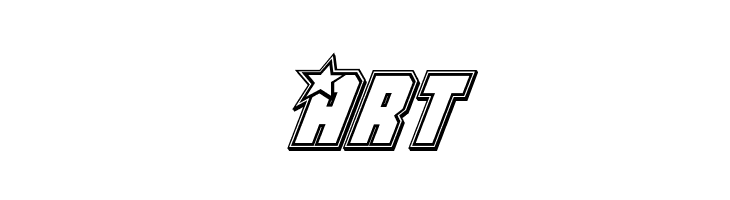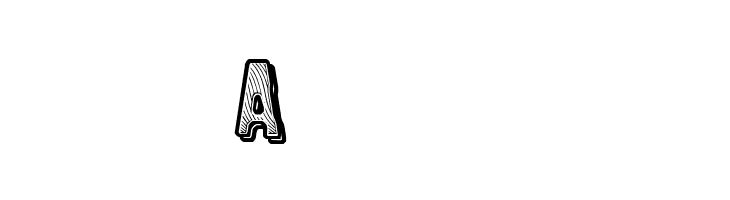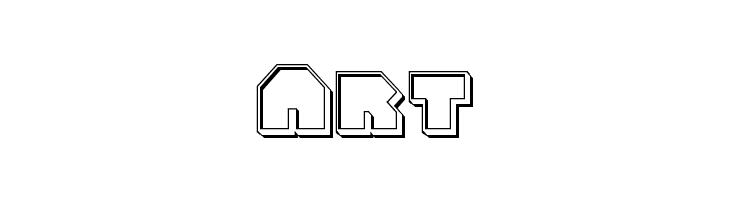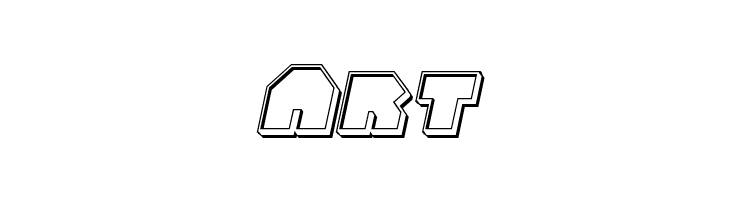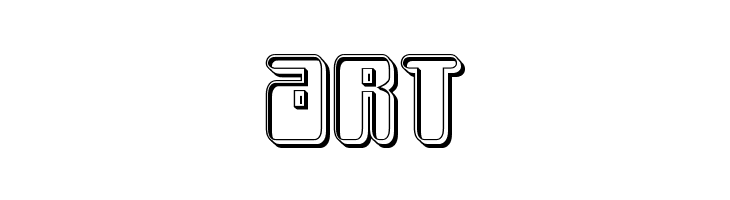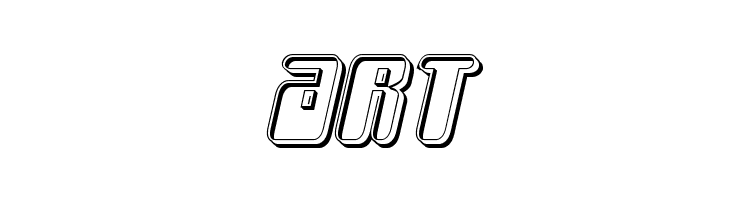
A bold, engraved, italic font with a three-dimensional outline effect.
A bold, geometric font with an engraved, three-dimensional effect.
A bold, futuristic, engraved italic font with a three-dimensional outline.
A bold, engraved italic font with a modern, dynamic style.
A bold, engraved font with a three-dimensional, geometric style.
A bold, decorative font with a three-dimensional engraved effect.
A bold, italic, engraved font with a three-dimensional outline effect.
A bold, three-dimensional engraved font with a strong, impactful presence.
A bold, engraved italic font with a three-dimensional outline effect.
A bold, engraved font with a three-dimensional, vintage-inspired style.
A bold, geometric font with an engraved, three-dimensional appearance.
A bold, italic, engraved font with a three-dimensional outline effect.
A bold, engraved, italic font with a futuristic and geometric design.
A bold, engraved font with a futuristic and geometric style.
A futuristic, engraved font with a geometric, three-dimensional style.
A futuristic, engraved italic font with geometric outlines.
A bold, futuristic font with an engraved, three-dimensional effect.
A bold, italicized font with a futuristic engraved style.
A bold, futuristic font with an engraved, three-dimensional effect.
A futuristic, engraved italic font with a bold, three-dimensional look.
A bold, futuristic engraved italic font with a three-dimensional effect.
A bold, futuristic font with a three-dimensional engraved style.
A bold, geometric font with a 3D engraved effect and consistent blocky style.
A bold, geometric font with a 3D engraved effect and italic slant.
A bold, geometric font with a 3D engraved effect and sharp, angular lines.
A bold, futuristic font with a three-dimensional engraved effect and geometric shapes.
A bold, italicized font with an engraved, three-dimensional effect.
A bold, futuristic font with an engraved, three-dimensional style.
A futuristic, engraved font with a three-dimensional, geometric design.
A futuristic, engraved italic font with geometric outlines.
A bold, engraved font with a three-dimensional, playful style.
A bold, engraved font with a three-dimensional effect and strong visual impact.
A bold, futuristic font with an engraved, three-dimensional effect.
A bold, futuristic engraved italic font with a three-dimensional effect.